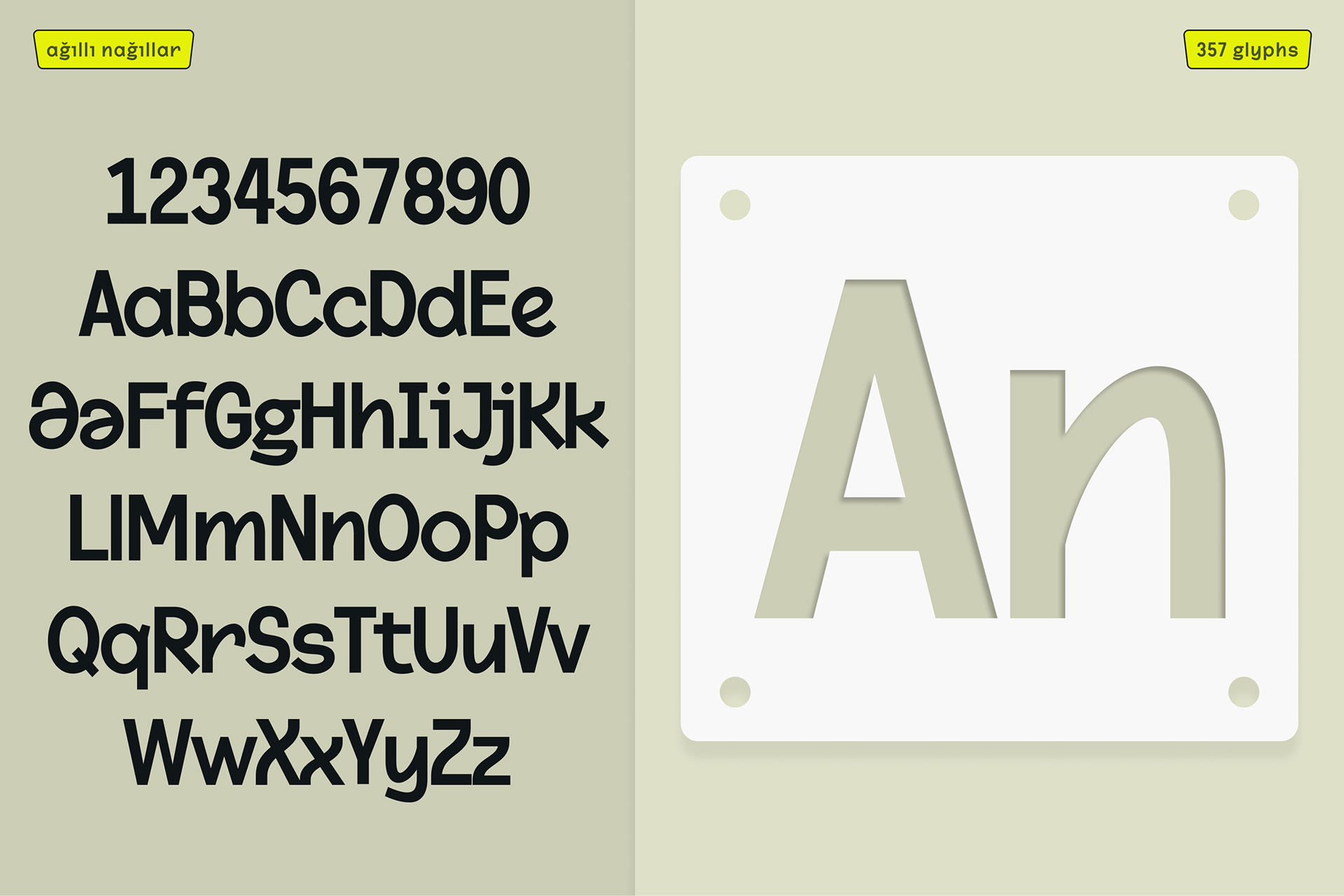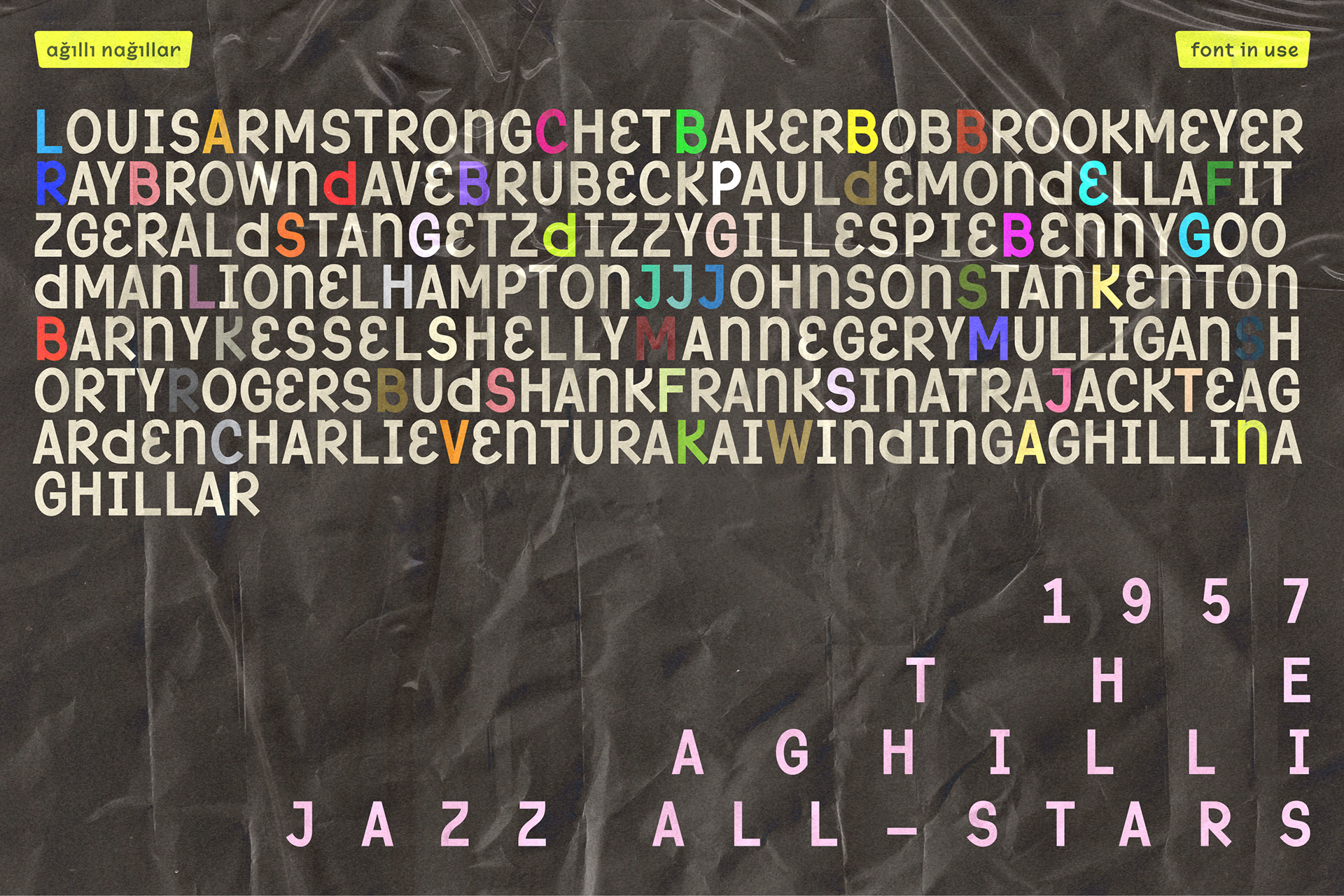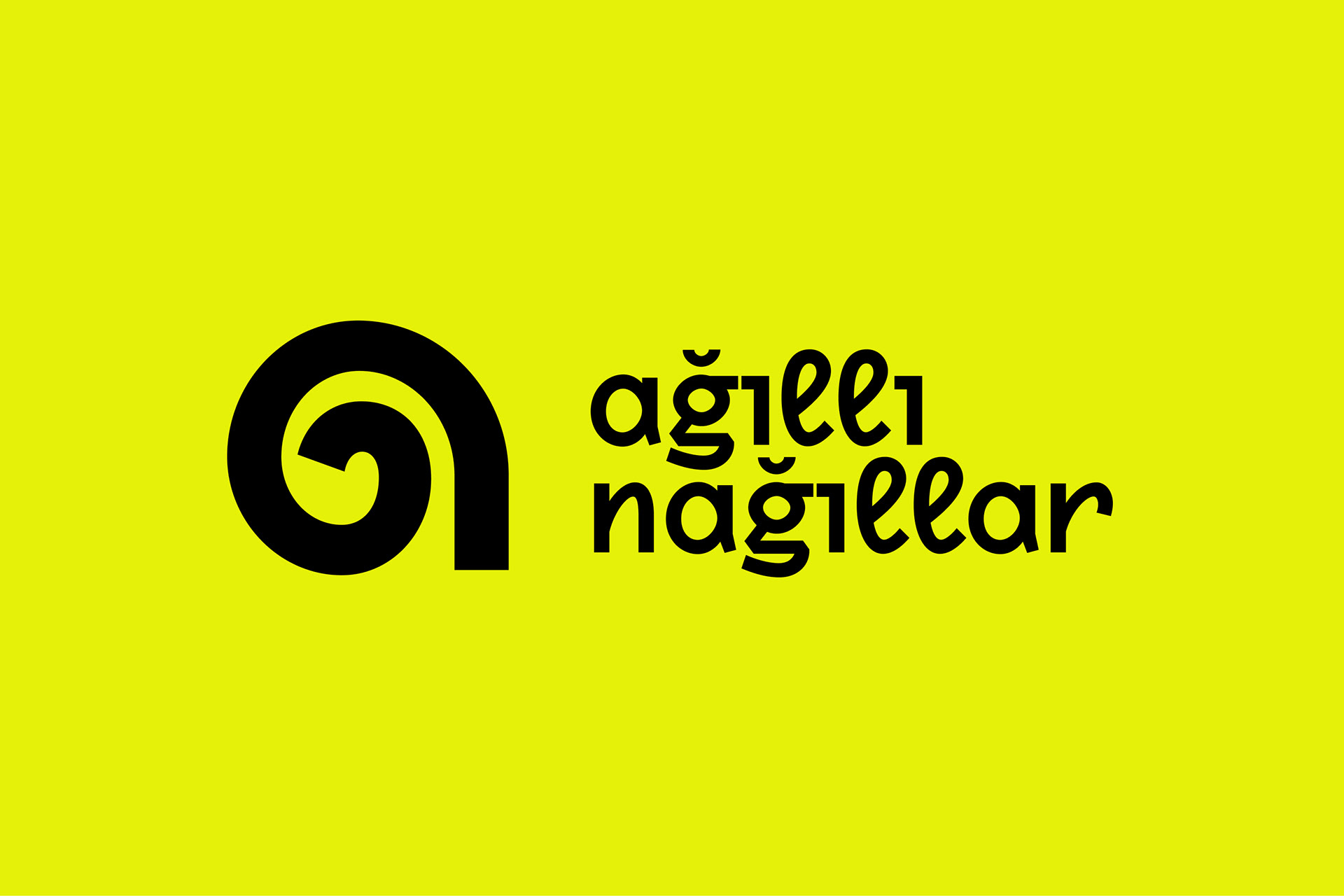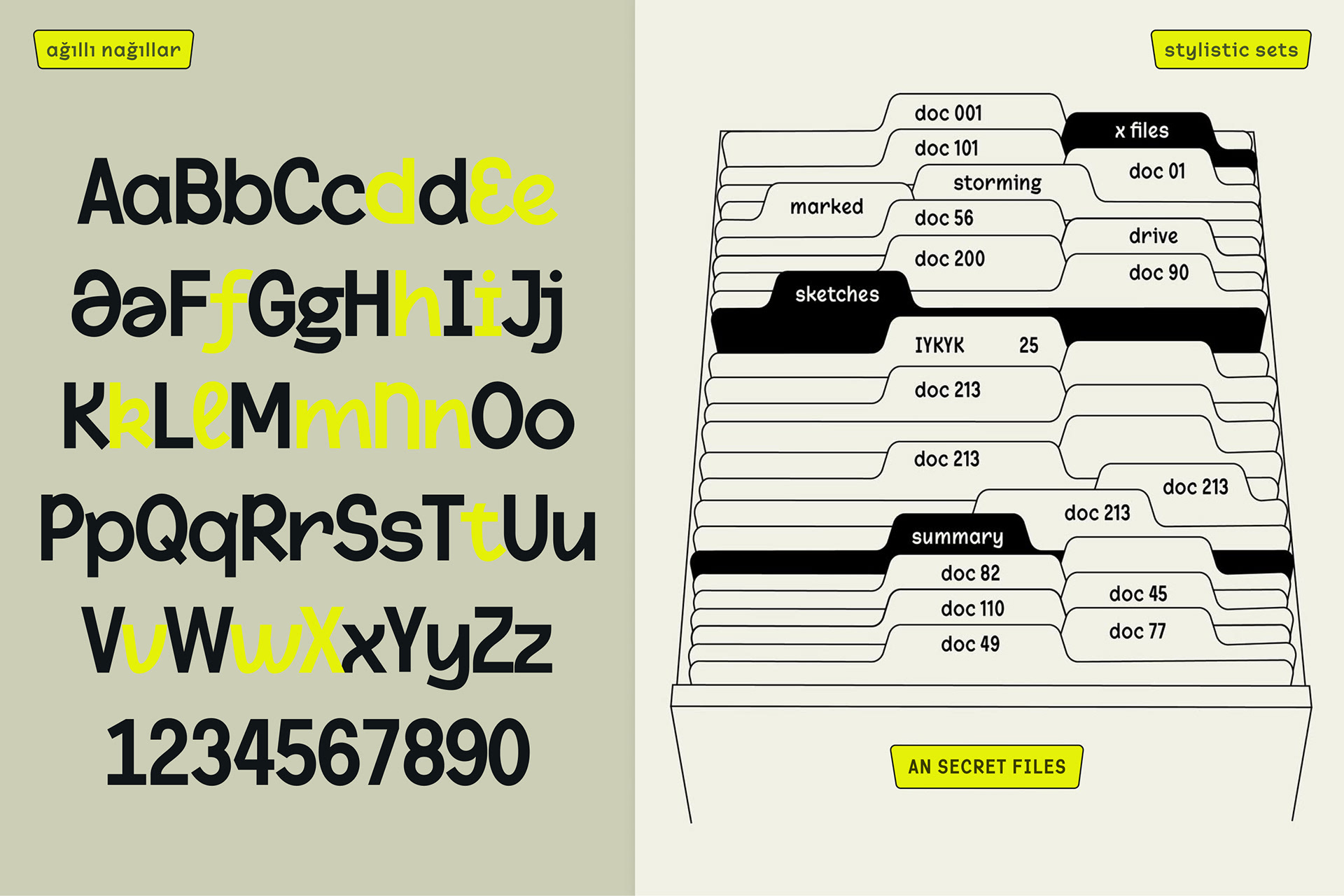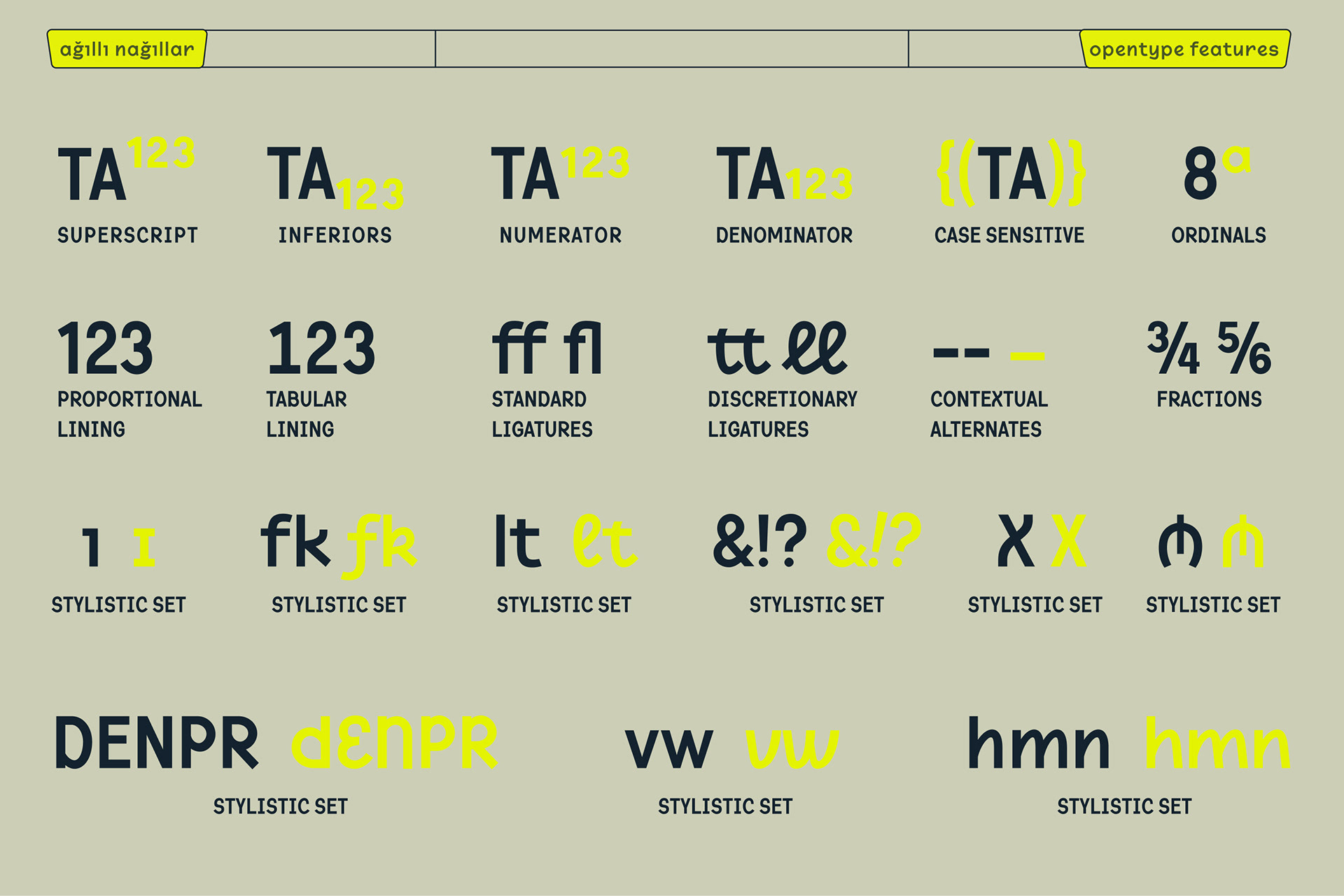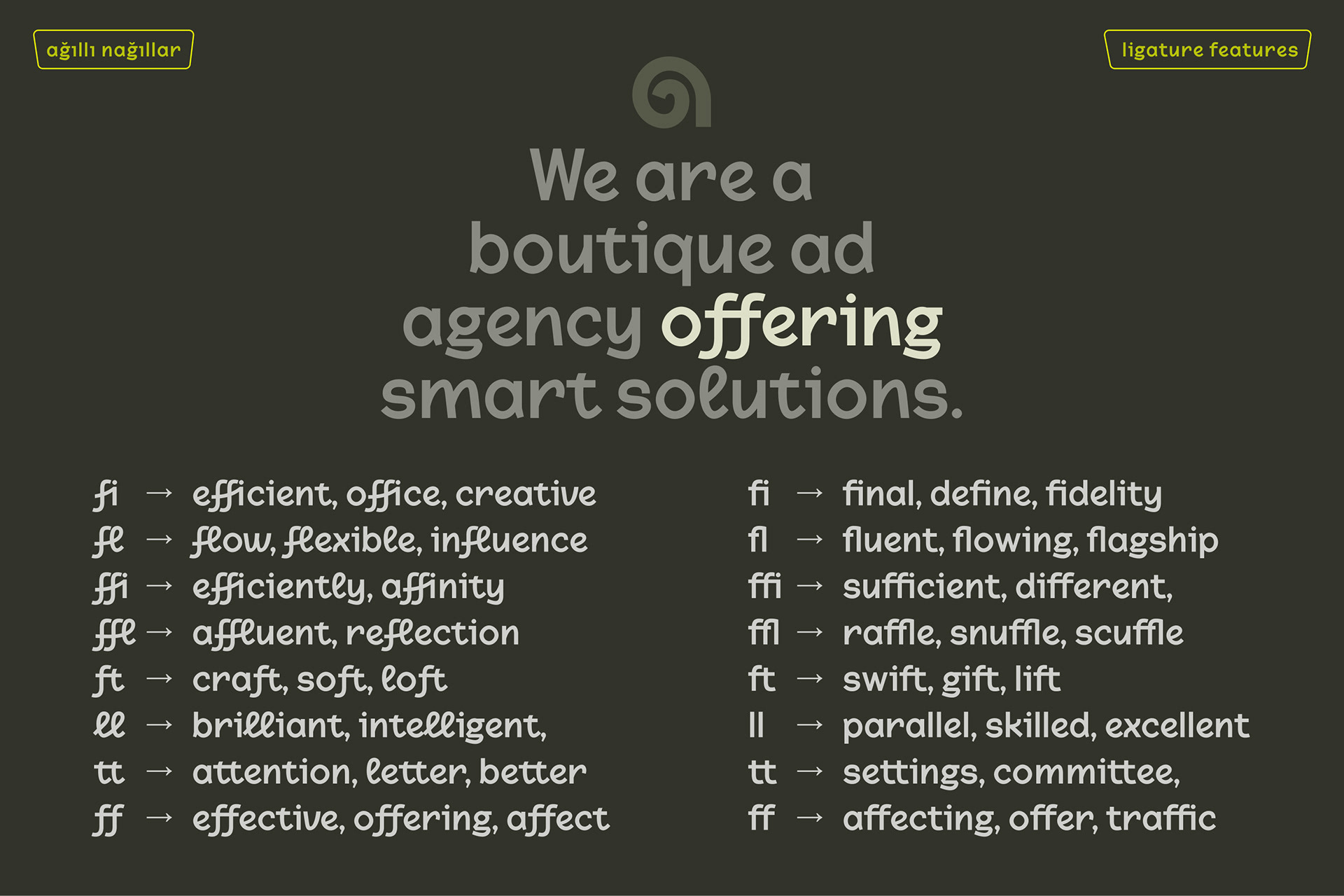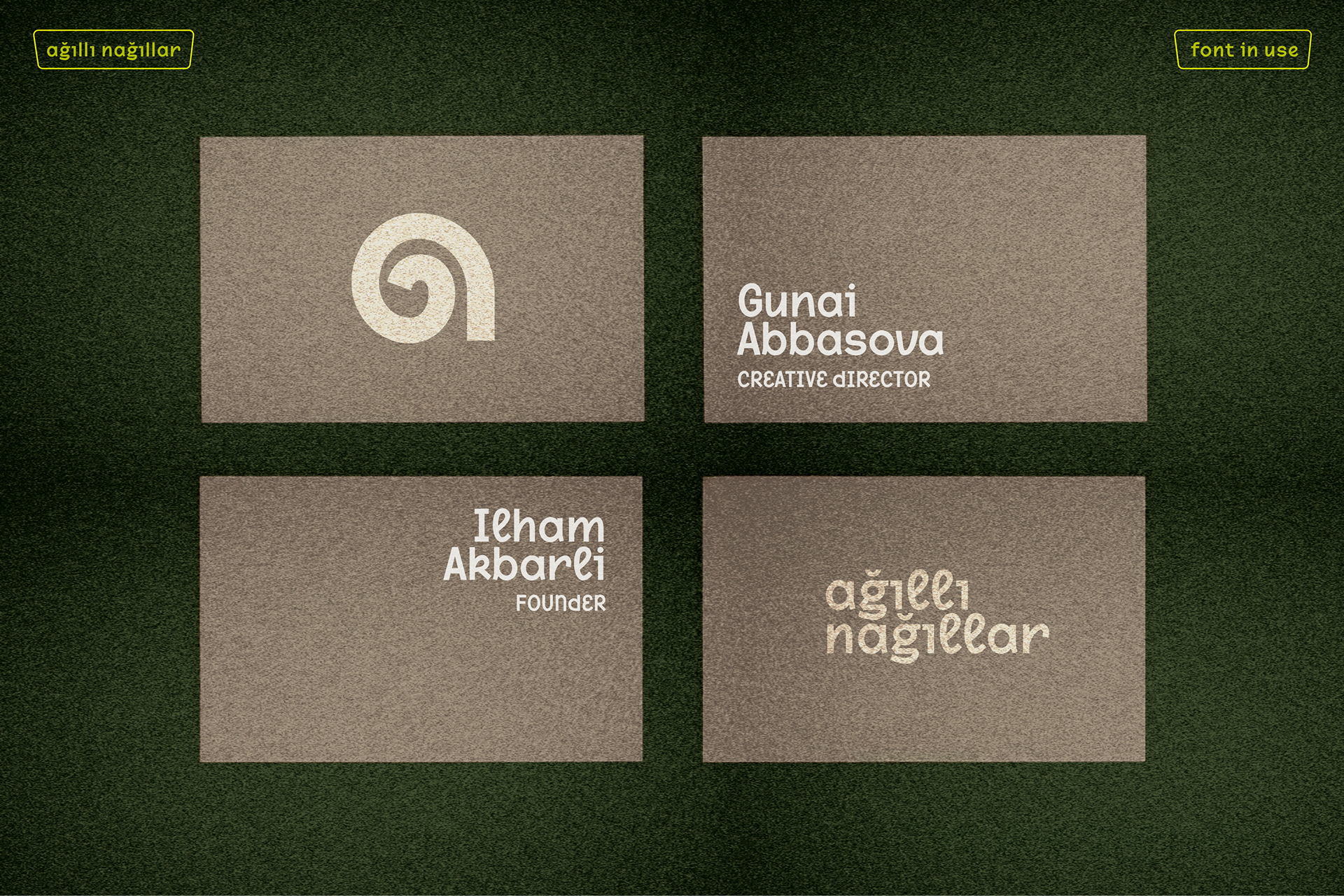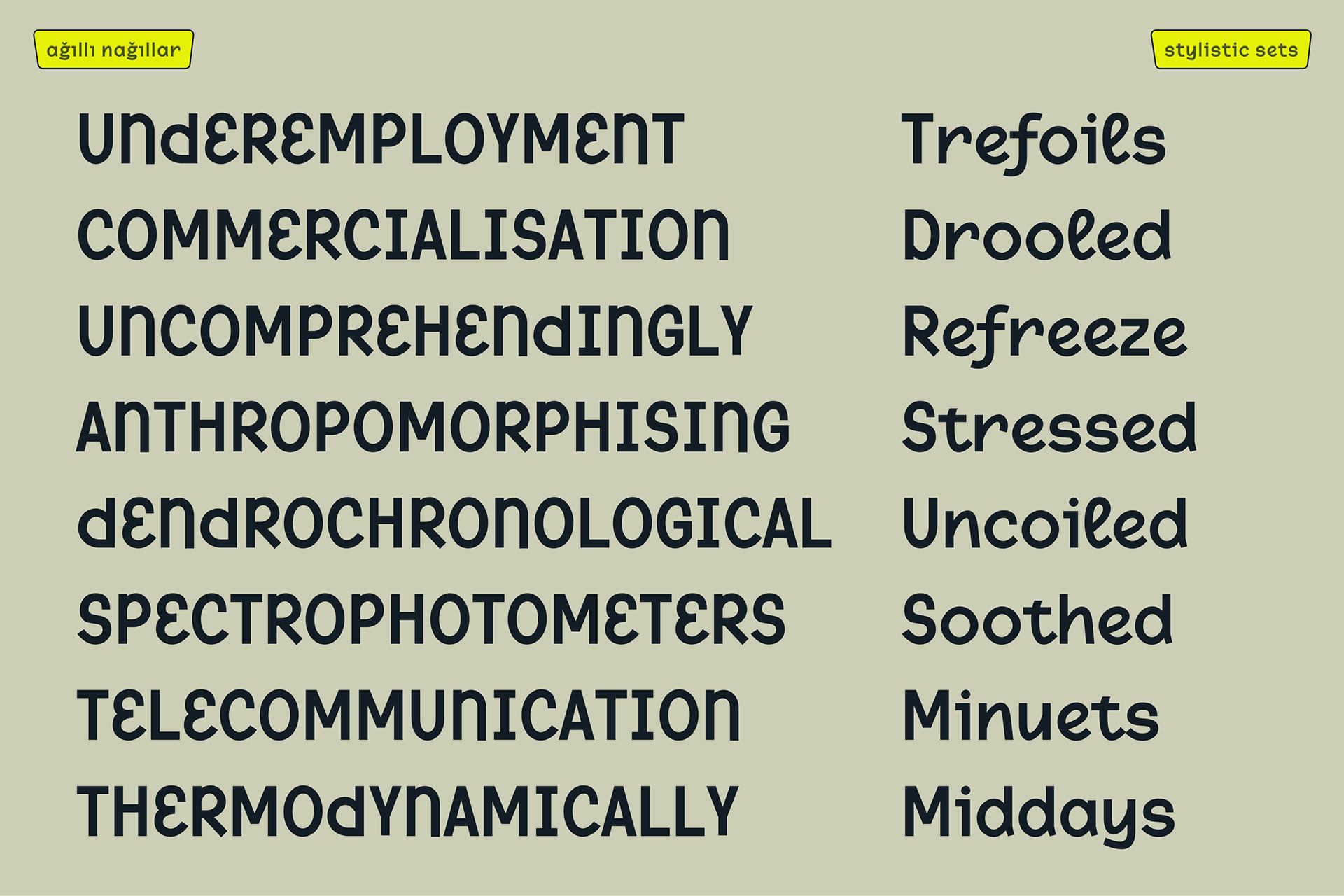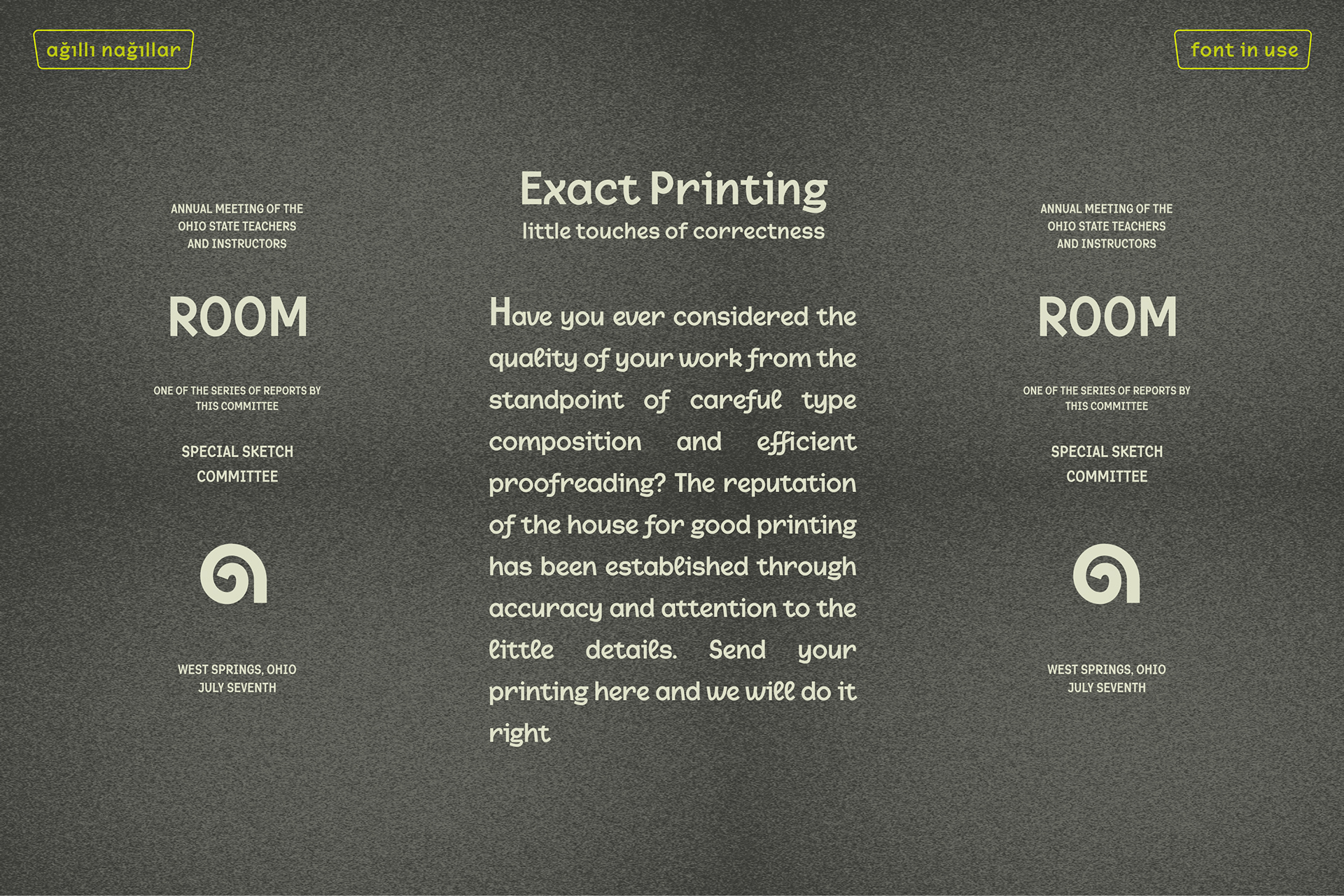
Ağıllı Nağıllar — an exclusive corporate typeface for the advertising agency. The Ağıllı Nağıllar typeface was created exclusively for the advertising agency of the same name. Serving as a central element of the agency’s visual identity, it forms the basis of the logo and acts as the brand’s primary communication tool.
The project began with the client’s own sketches and the idea of turning them into a functional font. My role went beyond digitizing the initial concept — I also refined the design with my own suggestions, improving the forms, technical accuracy, and overall usability.
The project required a fast turnaround, and the font was delivered on time so that the agency could immediately use it in their communication materials. The typeface fully met expectations and is already in active use. In the coming months, there are plans to further refine and expand it. For now, the timely delivery and provided support have been an invaluable help in the rebranding process.
During the rebranding, the agency’s style became more dynamic and flexible. The new logo emphasized creativity and emotional strength, but one piece was still missing — a signature font belonging solely to the agency.
In crafting the typeface, we drew inspiration from the agency’s core values: creative, modern, intelligent, flexible, and approachable. The result is a font that combines simplicity with professionalism, delivering a clear and convincing brand message.
The finished typeface contains 357 glyphs and supports only the Azerbaijani alphabet (within the Basic Latin set). With minimalist forms, precise proportions, and balanced spacing, it feels both familiar and innovative. Continuing the aesthetic language of the logo, it ensures consistency across all of the agency’s visual communication channels.
The Ağıllı Nağıllar font is intended for use in the agency’s social media accounts and internal communication materials. This way, the brand maintains a strong and distinctive visual signature wherever it connects with its audience.